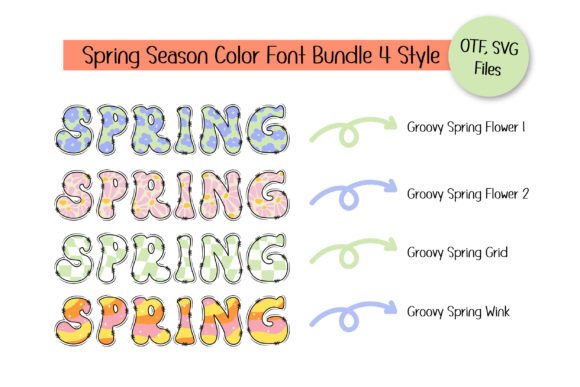
Groovy Spring Font
Introducing Groovy Spring the perfect font to capture the vibrant energy of the spring season. With its colorful patterns and elements inspired by spring, this font brings a playful and lively vibe to your designs. Mixing groovy style font with spring-themed elements, Groovy Spring offers 4 font styles to choose from. Additionally, you’ll receive 30 bonus matching clip art pieces to further enhance your creations. Let Groovy Spring infuse your designs with the spirit of the season, making them fresh, fun, and full of life.